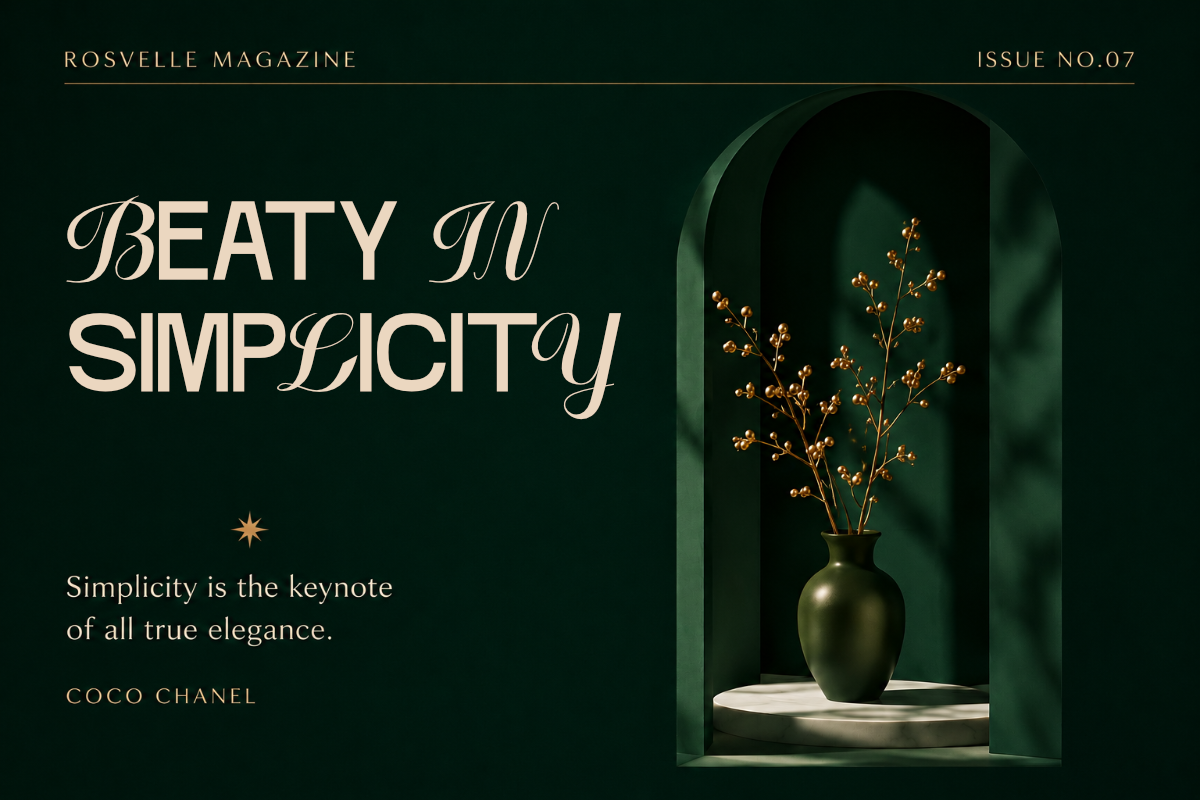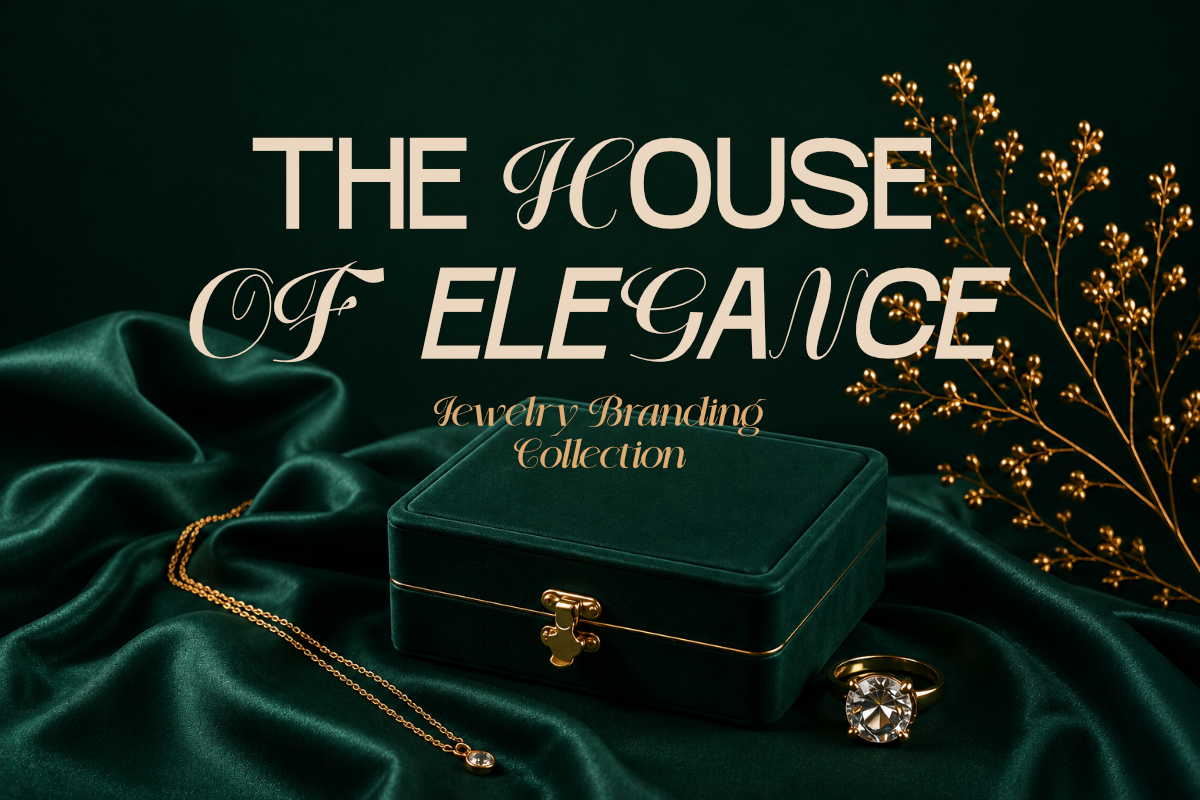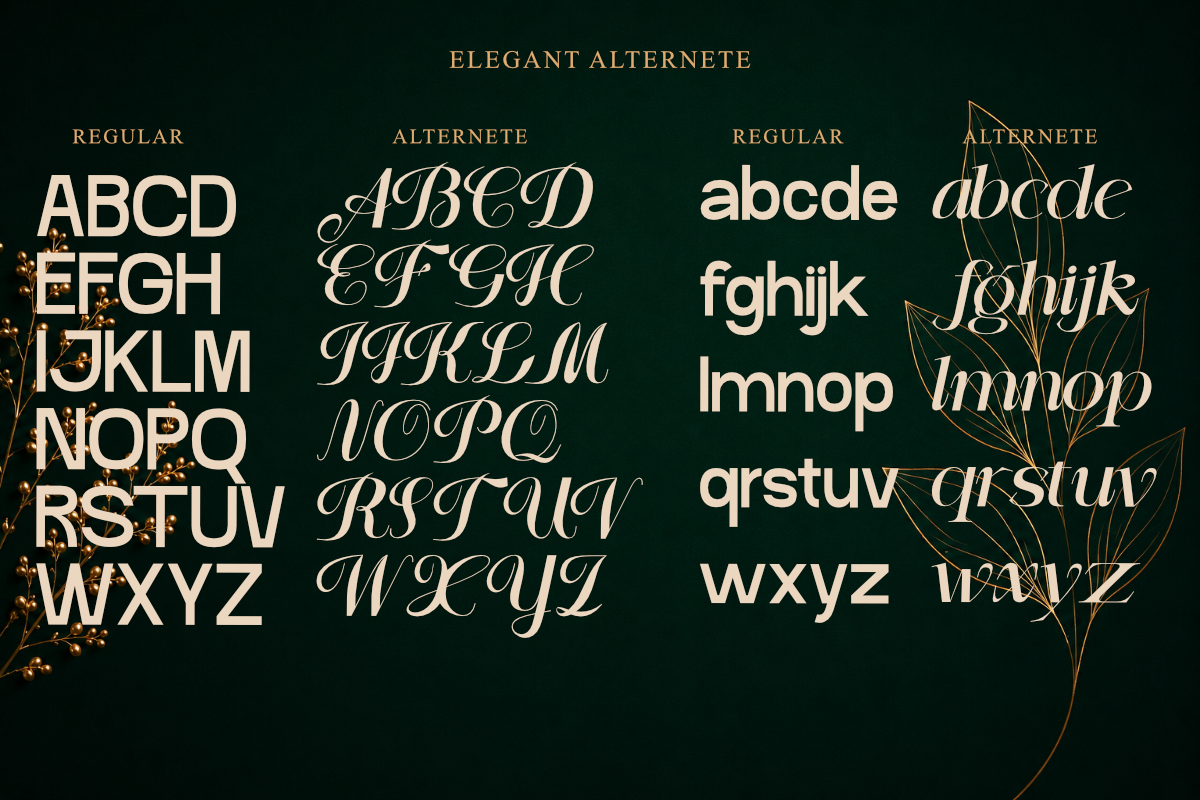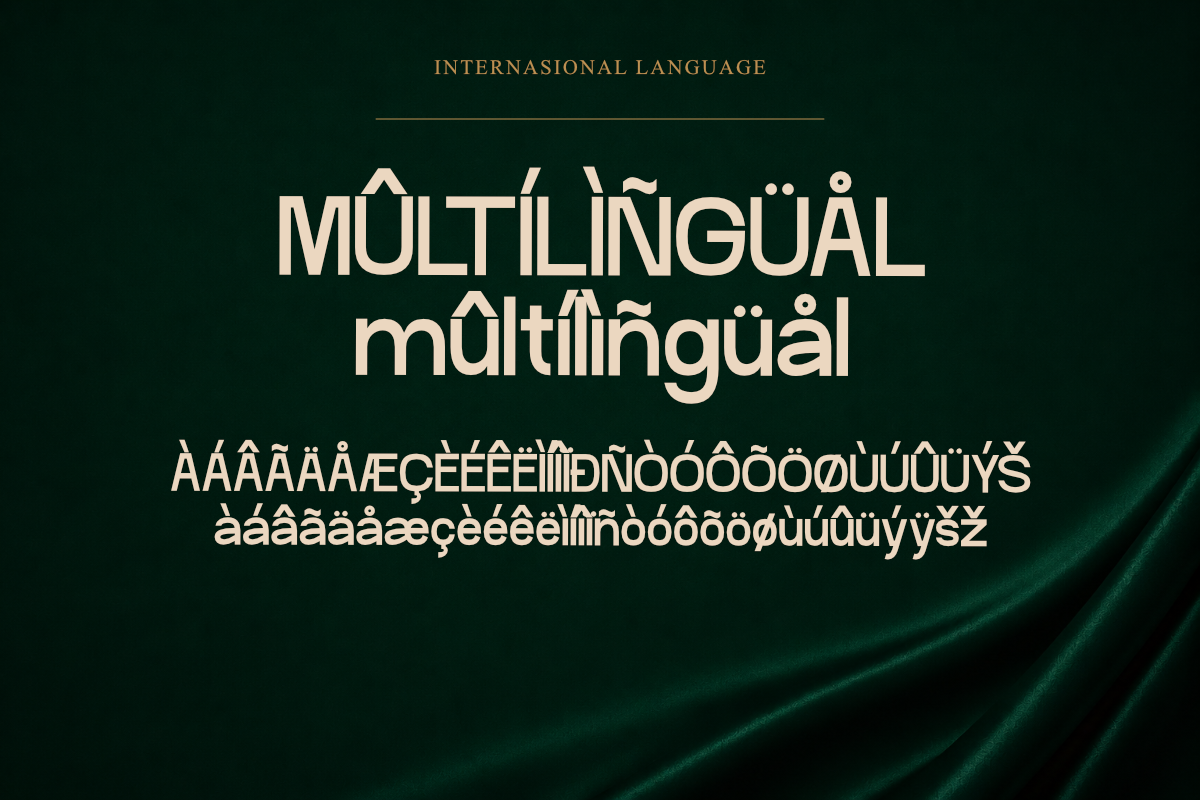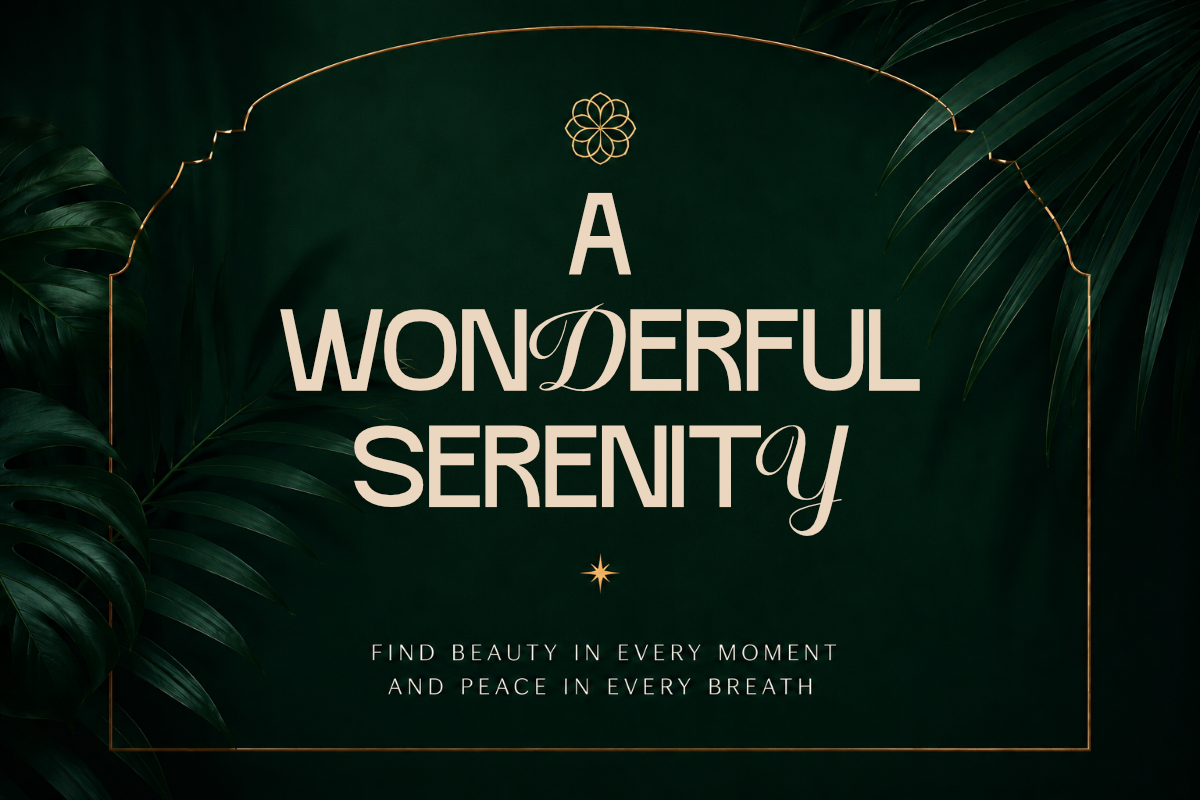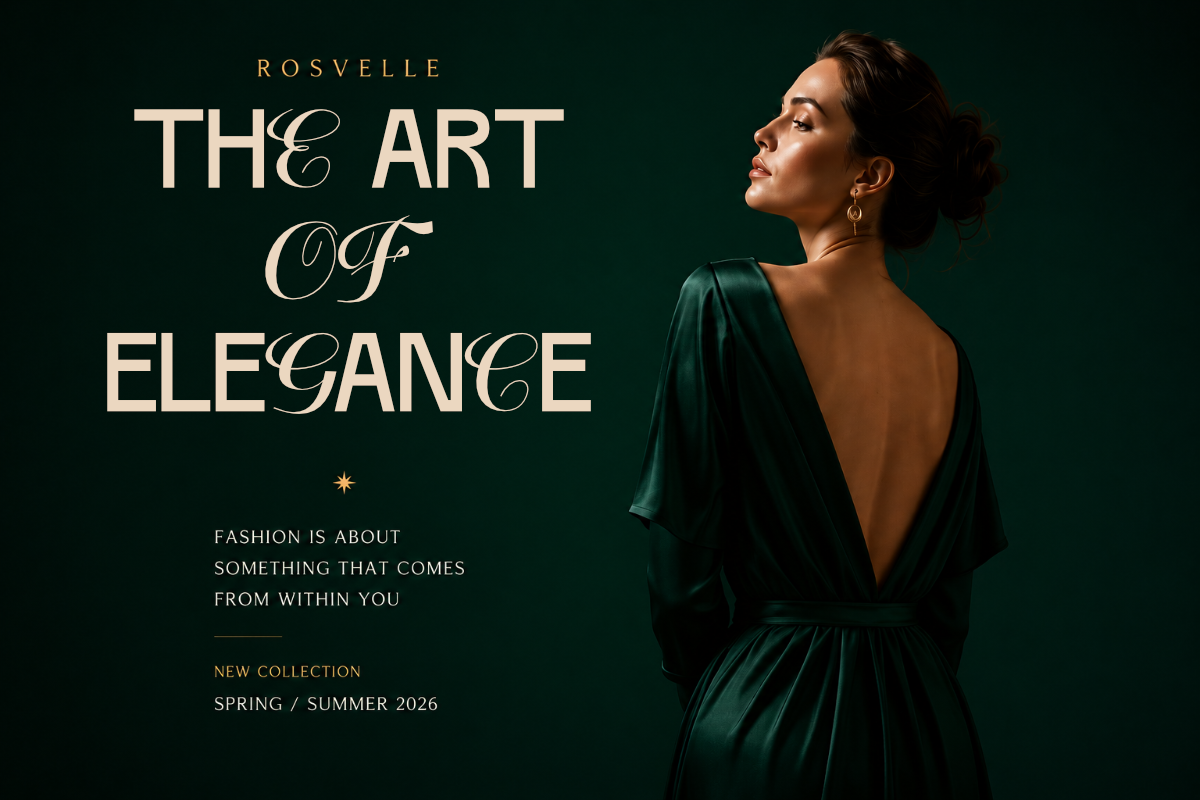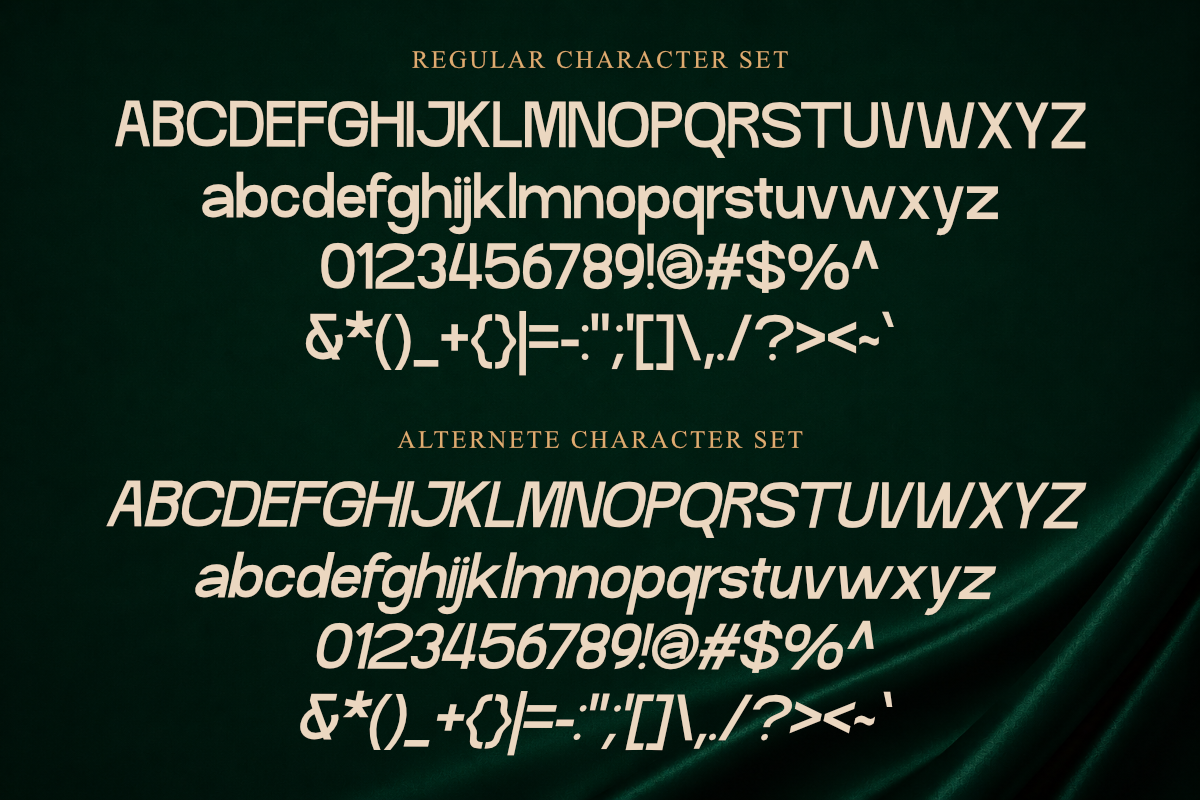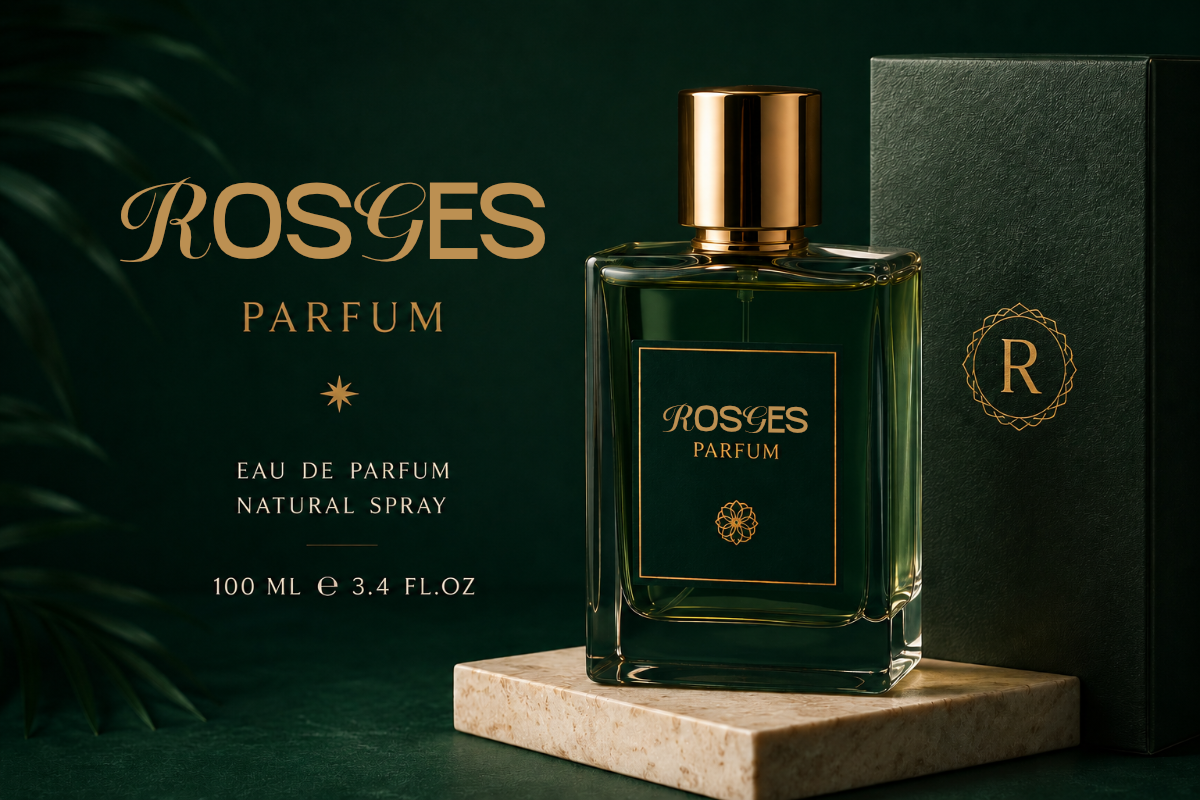
Rosvelle Luxury Hybrid Sans
Rosvelle is a modern hybrid sans serif that blends clean contemporary letterforms with graceful calligraphy alternates. Designed to create a perfect balance between structure and elegance, Rosvelle delivers a distinctive luxury aesthetic for sophisticated branding projects.
The font features a refined sans foundation complemented by carefully crafted alternate characters that introduce a touch of expressive beauty and editorial charm. Whether used subtly or prominently, these alternates allow designers to create unique and memorable typography compositions.
Perfect for luxury branding, beauty products, fashion campaigns, jewelry packaging, editorial layouts, wedding stationery, logos, and premium visual identities.
Regular Style
Italic Style
Elegant Calligraphy Alternates
Stylistic Set (SS01)